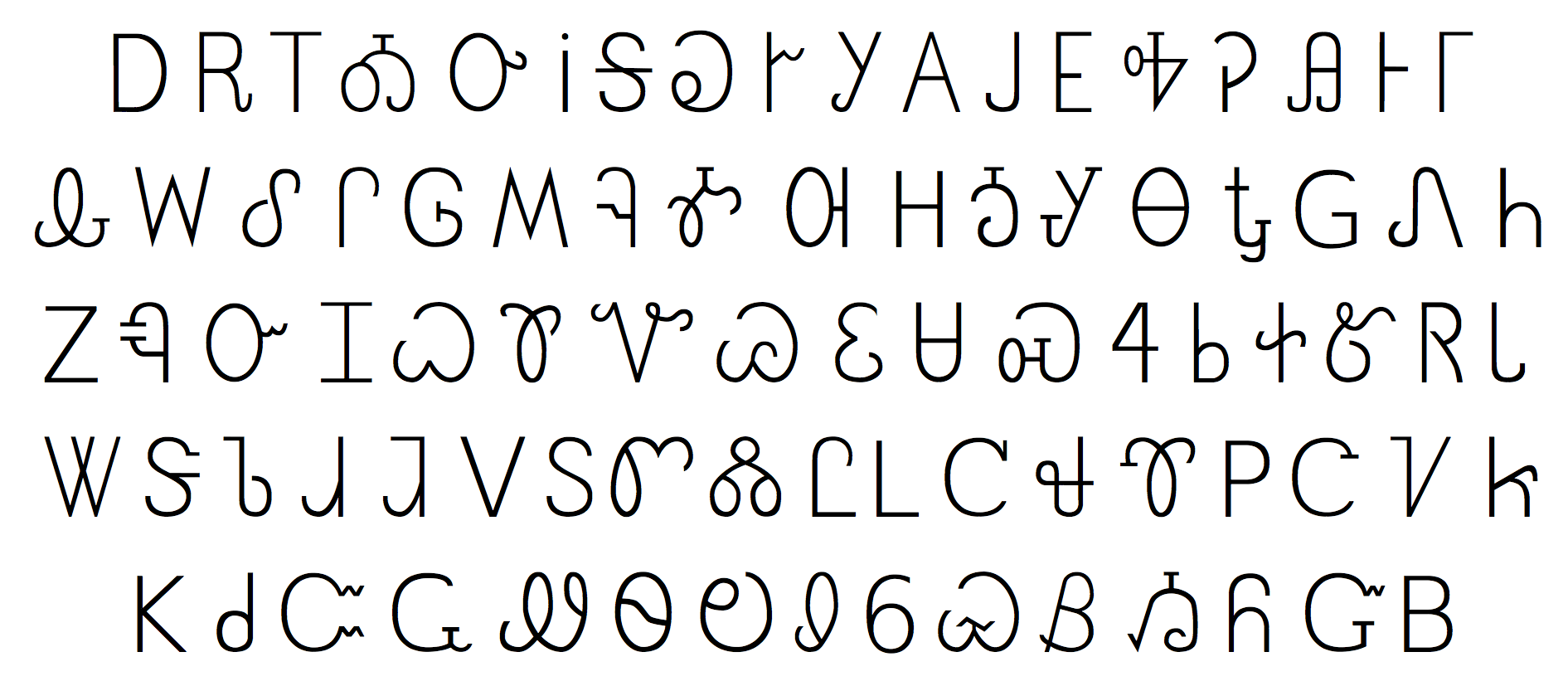
If you have installed a cherokee font that conforms to the unicode standard encoding, then all you need is to enable the cherokee language for keyboard input. The typeface consists of handsome titling capitals, swash forms and an expansion of ornaments that may be used alone or in ornamental borders. This cherokee keyboard enables you to easily type cherokee online without installing cherokee keyboard.you can use your computer keyboard or mouse to type tsalagi letters with this.
A b c d e f g h i j k l m n o. Text font generator is 100% free. Phoreus cherokee font pairings about description a full family with the new cherokee lowercase and a historic, new italic design for the cherokee language.
Fonts cherokee in standard category 22 free. This font uploaded 10 january 2013. The font has a style like the cherokee alphabet which is one.